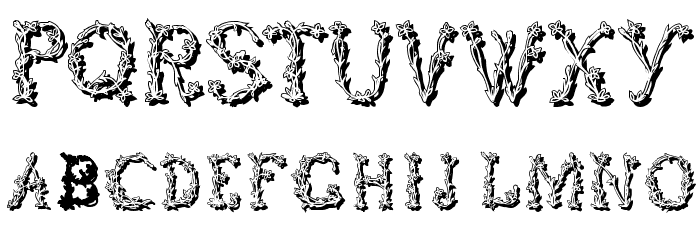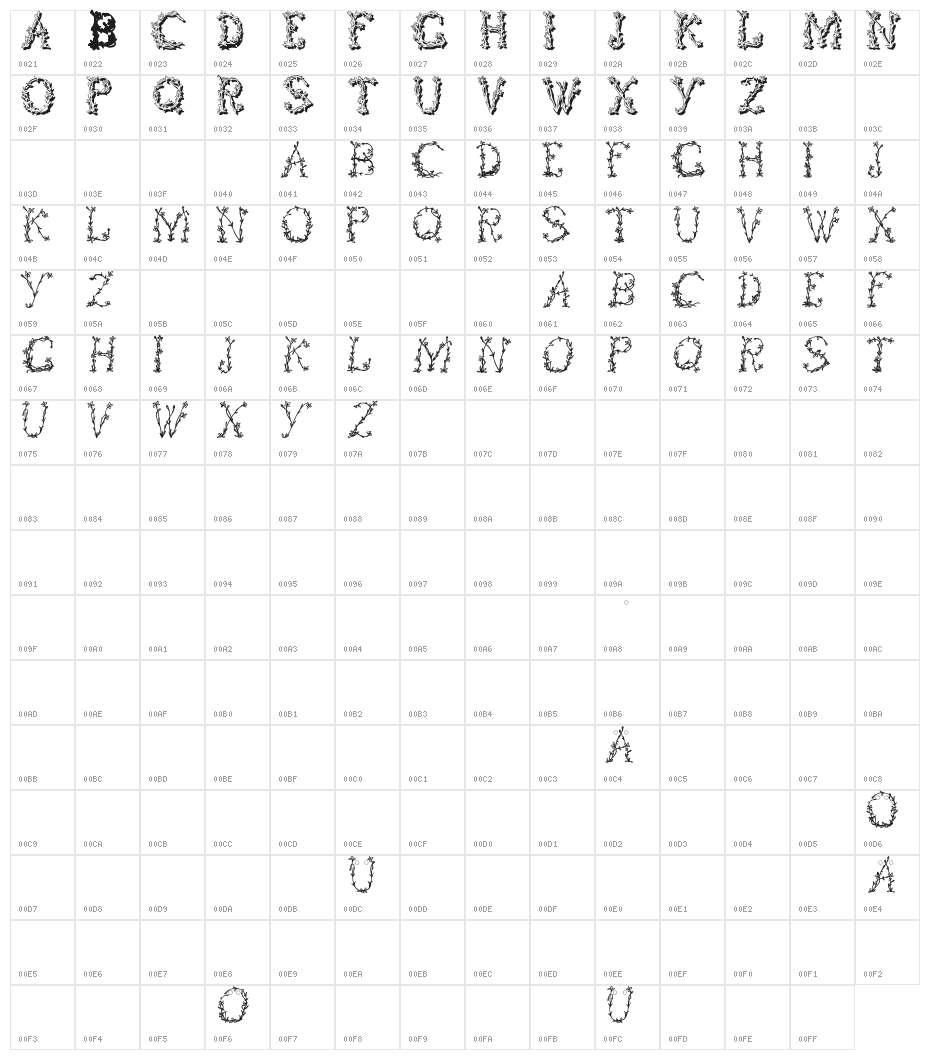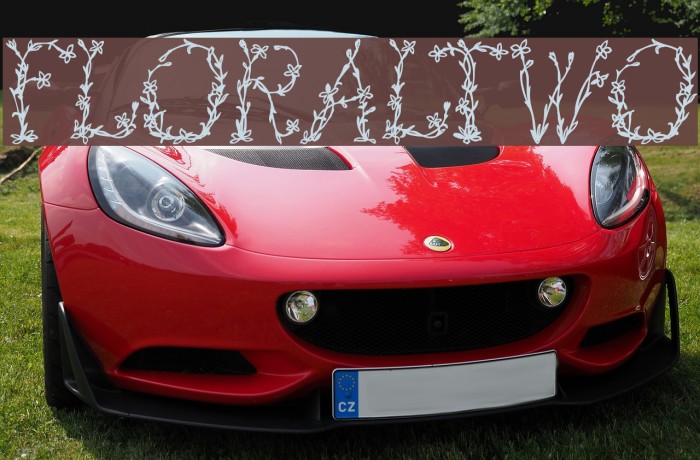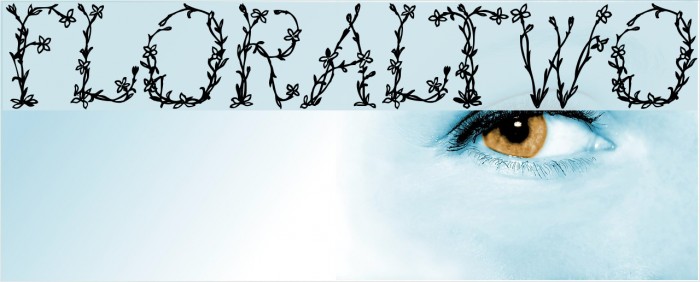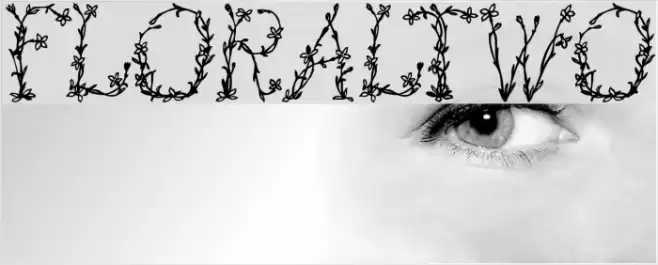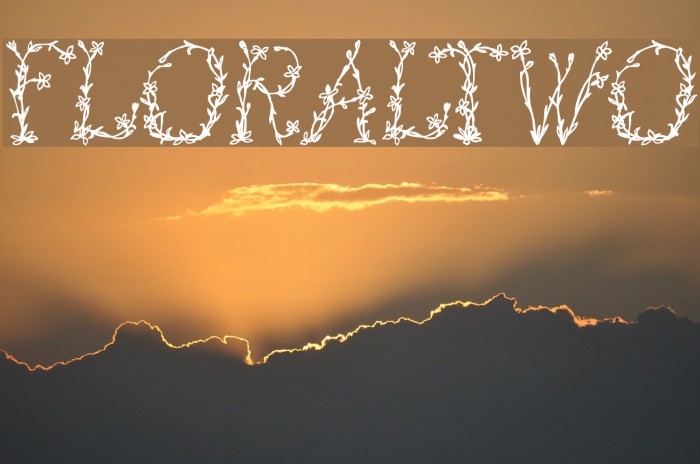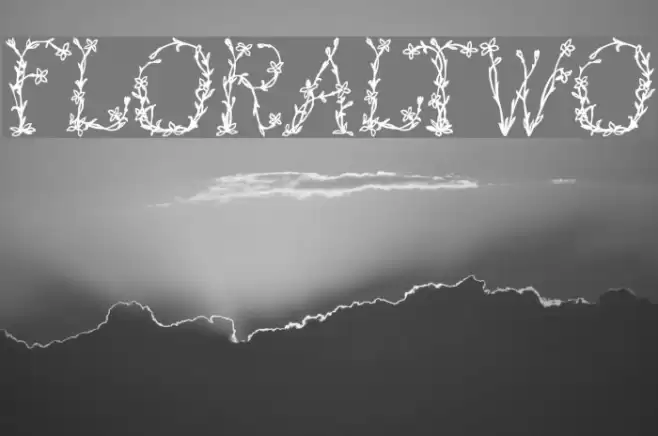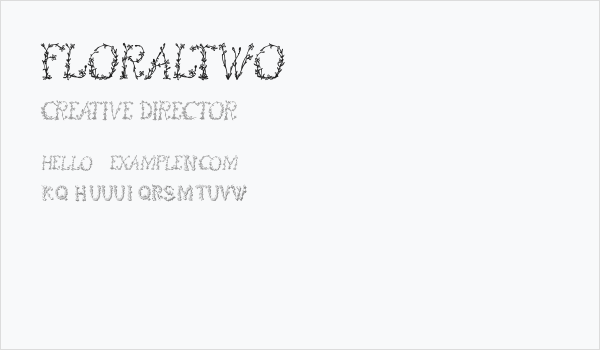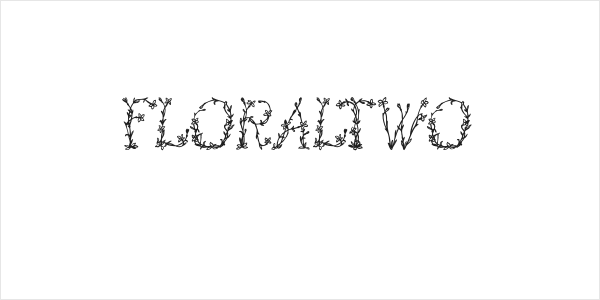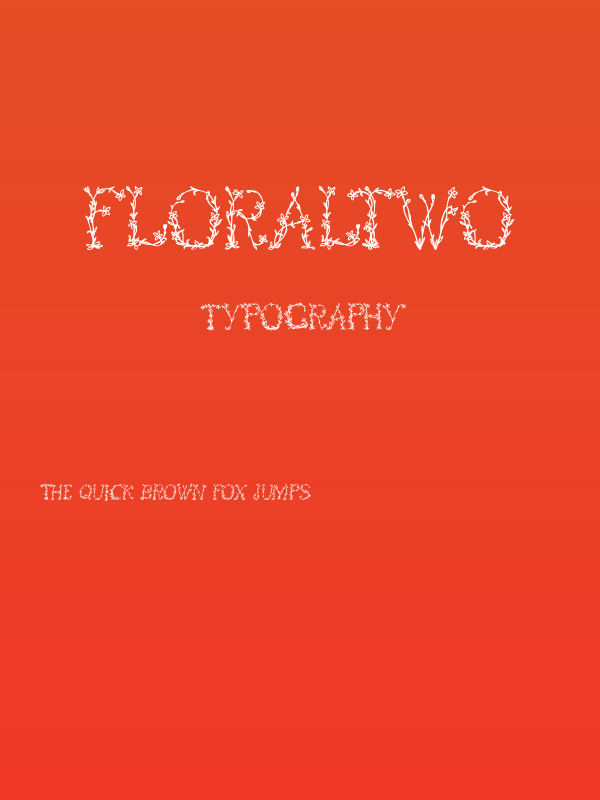
FloralTwo Font
FloralTwo Description
This font features an intricate design with floral elements entwined around each letter, creating a whimsical and decorative appearance. The characters are adorned with vines and leaves, giving them a natural and organic feel. The detailing is elaborate, making it suitable for artistic and creative projects. The overall look is both elegant and playful, with a touch of fantasy. This font is ideal for projects that require a unique and eye-catching typeface, such as invitations, greeting cards, or branding for nature-themed products.
| Proposed Projects | Ideal for invitations, greeting cards, nature-themed branding, and artistic projects. |